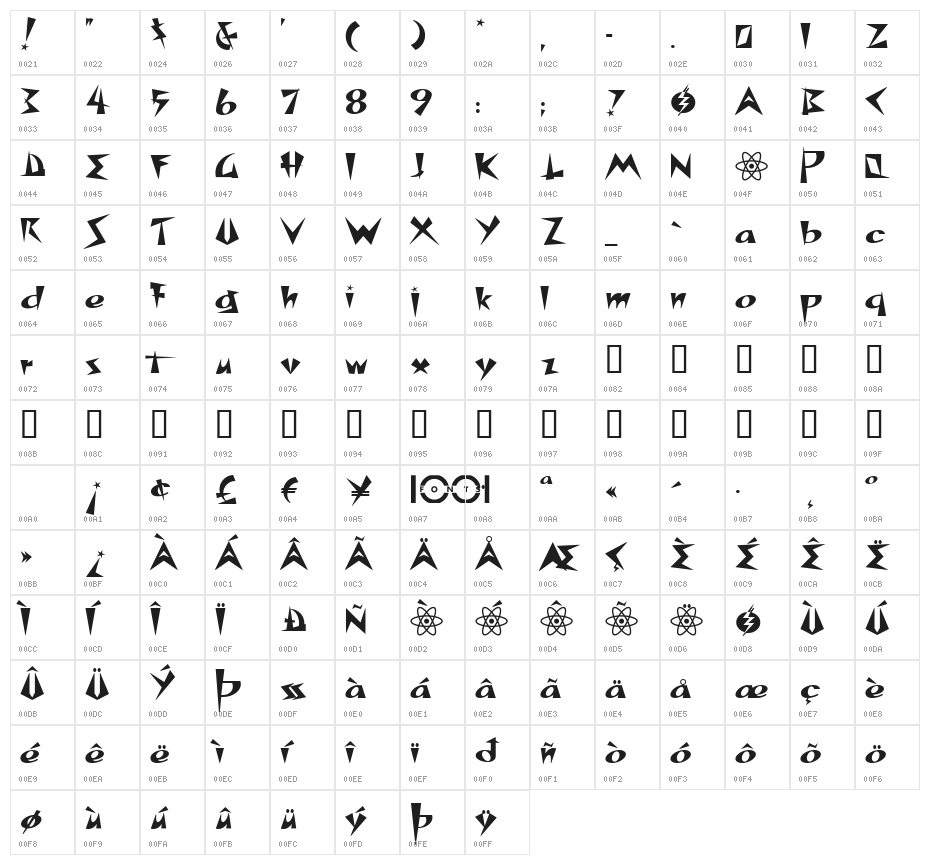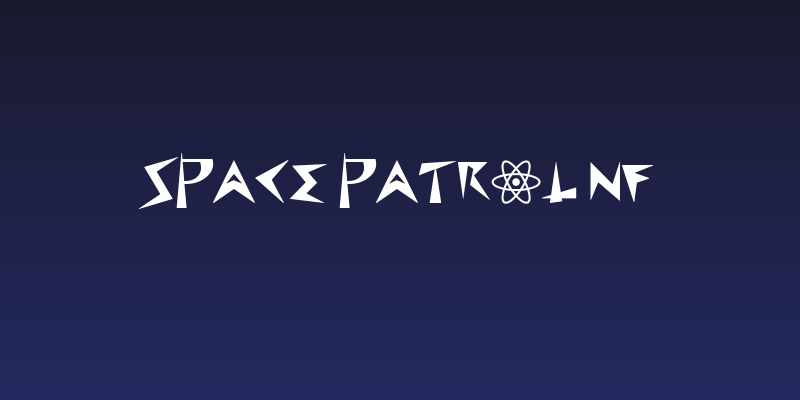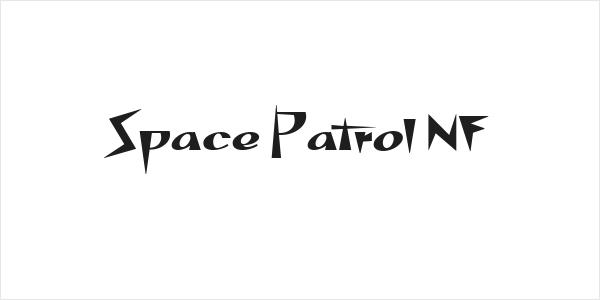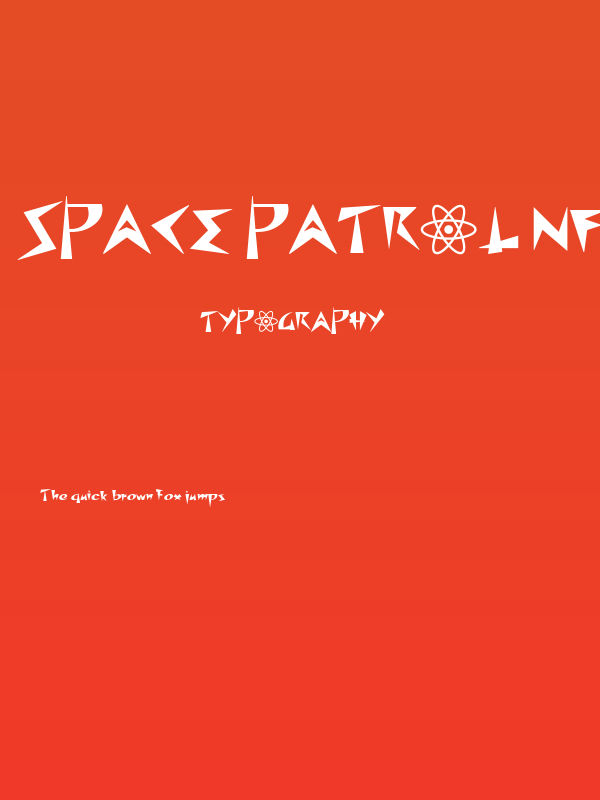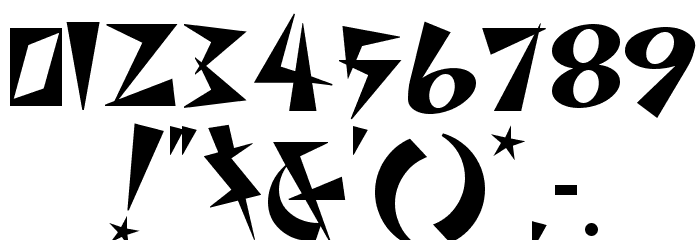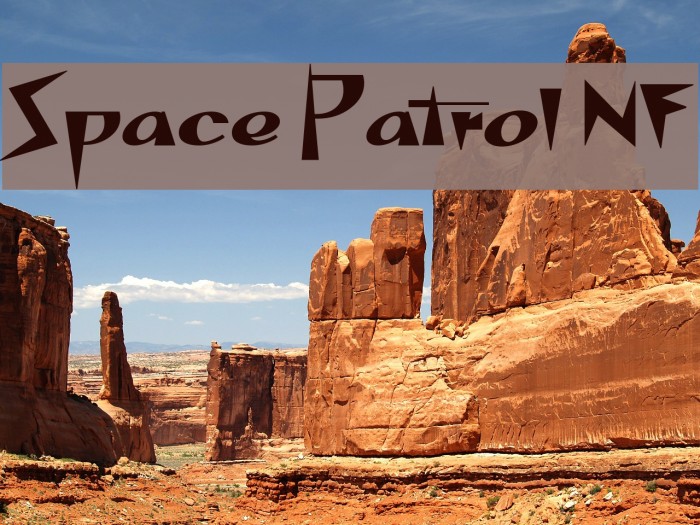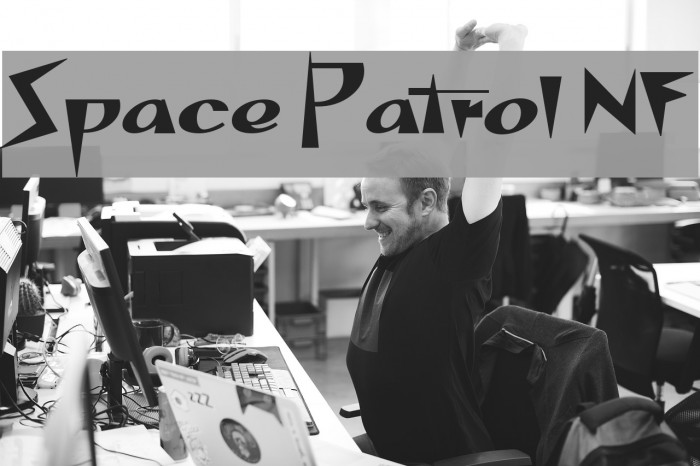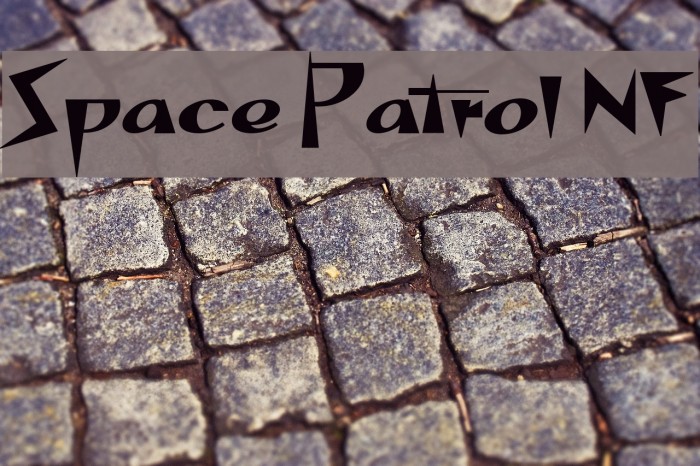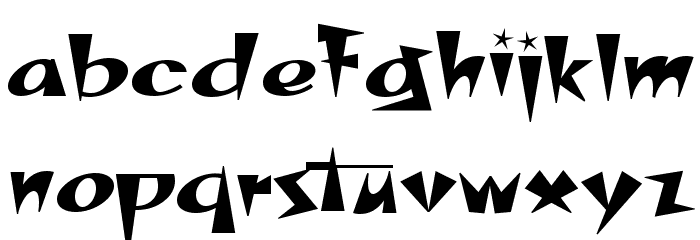
Space Patrol NF Font
Space Patrol NF Description
This font features a bold and dynamic style with sharp, angular edges and a futuristic aesthetic. The uppercase letters are characterized by their geometric forms and pointed tips, creating a sense of movement and energy. The lowercase letters maintain this angular theme but with slightly softer curves, adding a playful touch. Numbers and special characters follow the same design principles, ensuring consistency throughout. The font's unique style is reminiscent of retro-futuristic designs, making it ideal for projects that require a bold, eye-catching typeface.
| Overall Style | Futuristic, Retro |
| Proposed Projects | Ideal for sci-fi themed posters, video game titles, comic book covers, and branding for tech companies. |